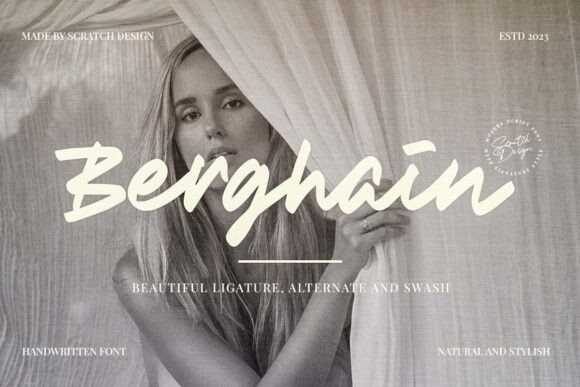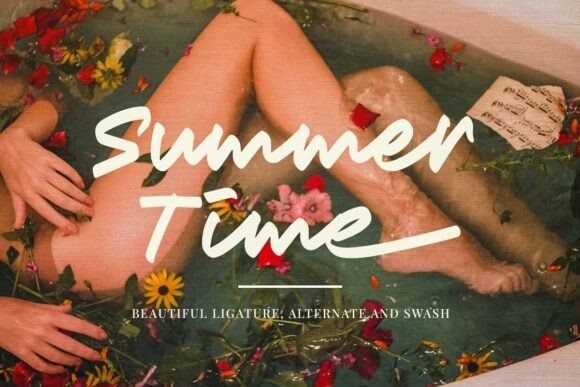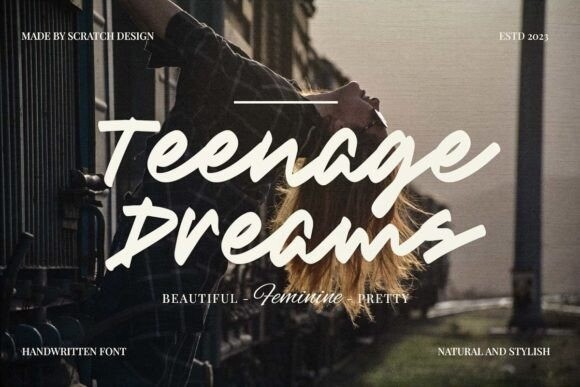
Berghain Font
Berghain Font! Modern script handwriting with a beautiful, natural, and cursive style. This font has natural handwriting texture making this font look authentic but still readable and incredibly versatile. This font will look outstanding in any occasion design concept, whether it’s being used on colourful backgrounds or as a stand as a headline in a minimalist set!
Berghain has multi-language support, swashes, alternate and beautiful ligature dan you can apply it in OpenType mode in adobe photoshop or adobe illustrator. This font will suit your design, especially in branding, wedding, advertising, headline, poster, book cover, and many more!